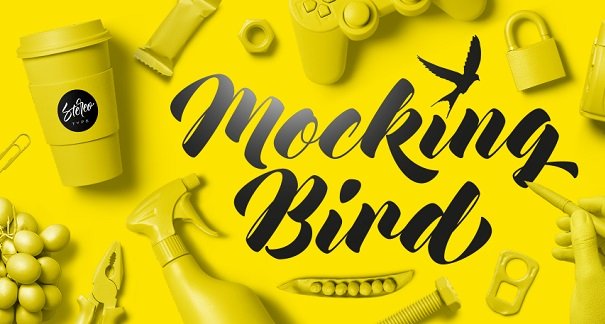
Mocking Bird Font
Mocking Bird is a bold script font with sexy curves! The full commercial version comes with a collection of 62 alternate glyphes and contextual ligatures.
Every lowercase is provided with at least one alternate!